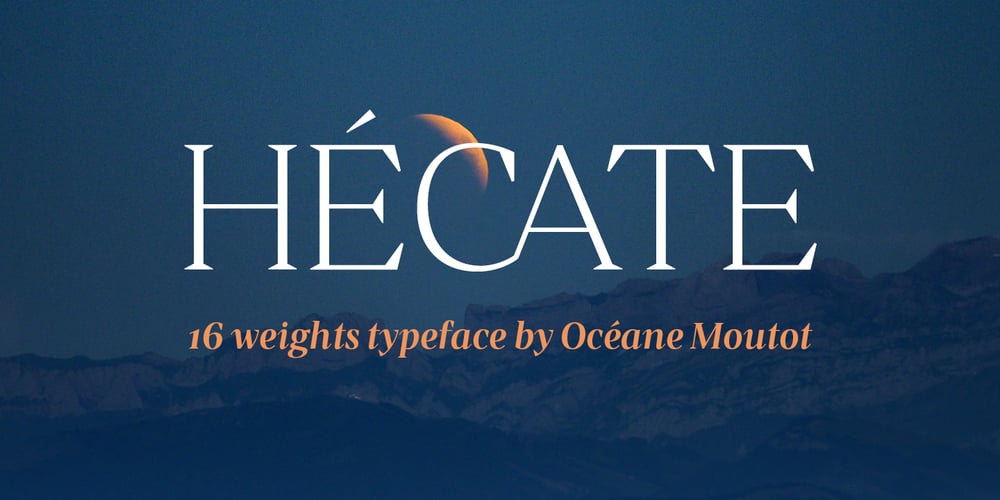
Hecate
Hecate font
Hecate Font Family was designed by Océane Moutot and published by Océane Moutot. Hecate contains 16 styles and family package options. Hécate is a contemporary serif typeface designed with sharp serifs, smooth and dynamic lines and high contrast. Inspired by the Garalde style with its tilted axis, Hécate brings uniqueness and modernity to this more traditional style. Its large variety of glyphs, including accents, old-style numbers and ligatures will give you freedom for all of your projects. It offers a large choice of uses such as magazine, branding, edition and so on.Hécate is available in 16 styles from thin to black, in roman and italic.